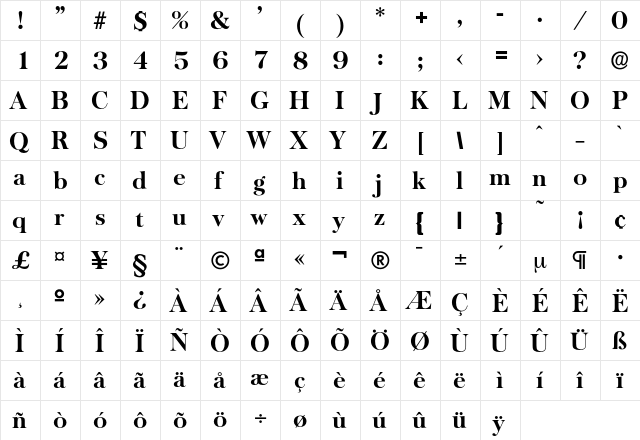
Baskerville-Bold Regular Font Preview
Baskerville-Bold Regular
Design Context for Baskerville-Bold Typeface
Baskerville-Bold offers clean, dependable letterforms without strong stylistic allegiance, making it a practical choice for designers who need flexibility. Its bold stroke weight gives it real presence on the page.